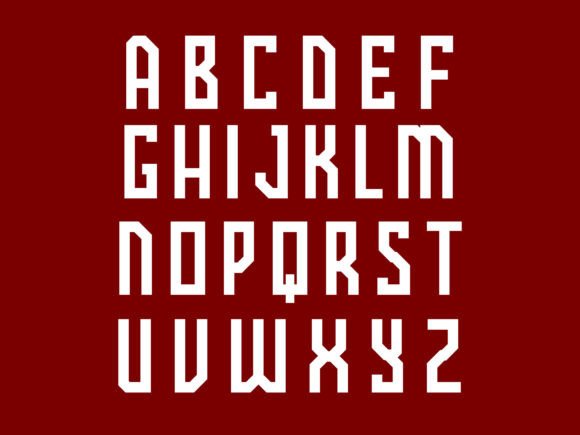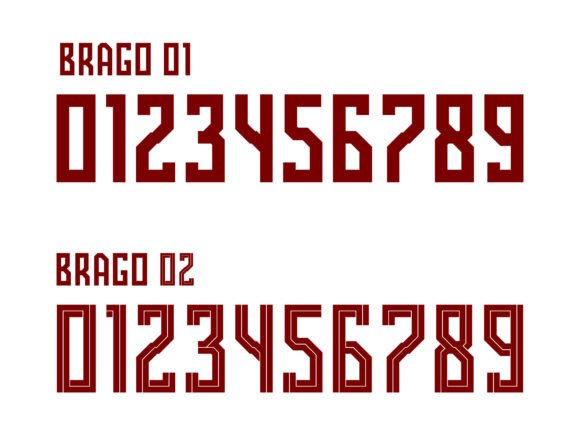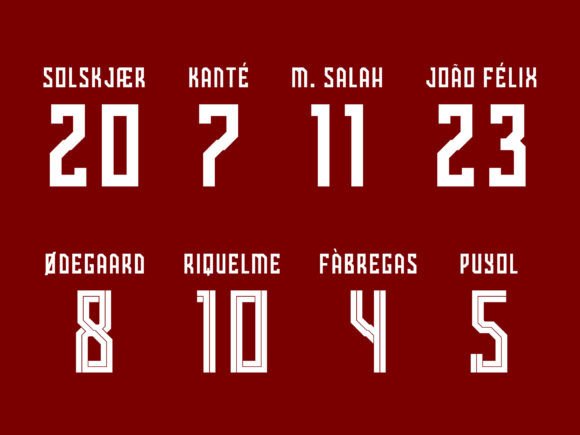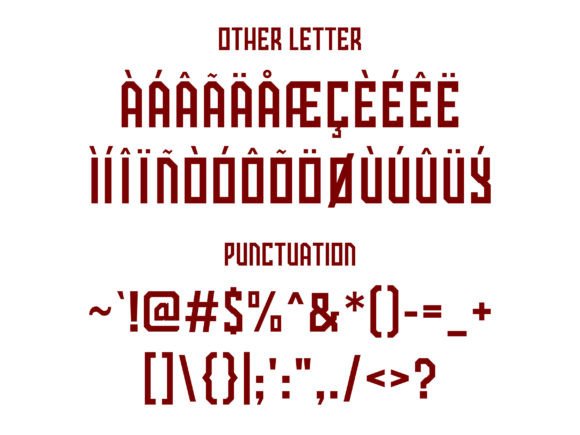
The Winning Design: Introducing Brago Font
Imagine you’re watching your favorite football team take the field, and the jersey numbers leap out at you in bold, eye-catching style. That’s the magic of Brago Font, a display font designed specifically for sports uniforms and jerseys. But its versatility doesn’t stop there – Brago Font is also perfect for esports logos, headlines, and more.
As a designer, you know the importance of a font that makes a statement. That’s where Brago Font comes in – a game-changer for any project that needs a bold, attention-grabbing look. With its clean lines and dynamic feel, Brago Font is a valuable addition to any designer’s toolkit. Whether you’re working on a sports-themed project or something entirely different, Brago Font is sure to deliver.
Brago Font Key Features
- Font Family: Brago Font is a sans-serif font family designed for digital use.
- Font Sizes: The font is available in multiple weights, ranging from light to bold, allowing for flexibility in design and layout.
- Unique Characteristics: Brago Font features a clean and modern design, with a focus on legibility and readability, making it ideal for digital and print applications.
Brago Font Review
Brago Font is a beautifully crafted sans-serif typeface that exudes modernity and sophistication. ✨ The font’s clean lines and geometric shapes make it perfect for digital design projects, especially those that require a professional and sleek aesthetic. ✨ The font’s x-height is well-balanced, ensuring readability across various screen sizes and resolutions.
One of the standout features of Brago Font is its extensive language support. ✨ It includes over 150 languages, making it an excellent choice for multinational brands and companies that cater to diverse audiences.
While Brago Font is an excellent choice for digital design, it may not be the best option for projects that require a more rustic or vintage look. ⚠️ The font’s modern design may not fit well with designs that aim to evoke a sense of nostalgia or classic charm.
Overall, I would highly recommend Brago Font for any digital design project that requires a clean, modern, and professional look. While it may not be the best choice for every project, its versatility and extensive language support make it a valuable addition to any designer’s toolkit.
- Modern sans-serif design
- Extensive language support (over 150 languages)
- Well-balanced x-height for readability
- Perfect for digital design projects
Getting the Most Out of Brago Font
To get the most out of Brago Font, use it for headings and titles to add a touch of elegance and sophistication to your designs.
Combine Brago Font with other fonts to create a visually appealing contrast.
Brago Font is ideal for:
Business cards and branding materials
Editorial and publishing designs
Alternatives to Brago Font
Pacifico Font is a beautiful, elegant script font perfect for creating a sense of luxury and sophistication. It’s ideal for use in high-end branding, advertising, and editorial design. Compared to Brago Font, Pacifico Font has a more refined and polished feel, making it suitable for a wider range of applications.
Great Vibes Font is a fun, energetic script font that’s perfect for creating a playful and approachable vibe. It’s ideal for use in branding, packaging, and advertising for younger audiences. Compared to Brago Font, Great Vibes Font has a more casual and relaxed feel, making it suitable for a more casual tone.
Carolyna Pro Font is a elegant, modern script font that’s perfect for creating a sense of sophistication and luxury. It’s ideal for use in high-end branding, advertising, and editorial design. Compared to Brago Font, Carolyna Pro Font has a more refined and polished feel, making it suitable for a wider range of applications.